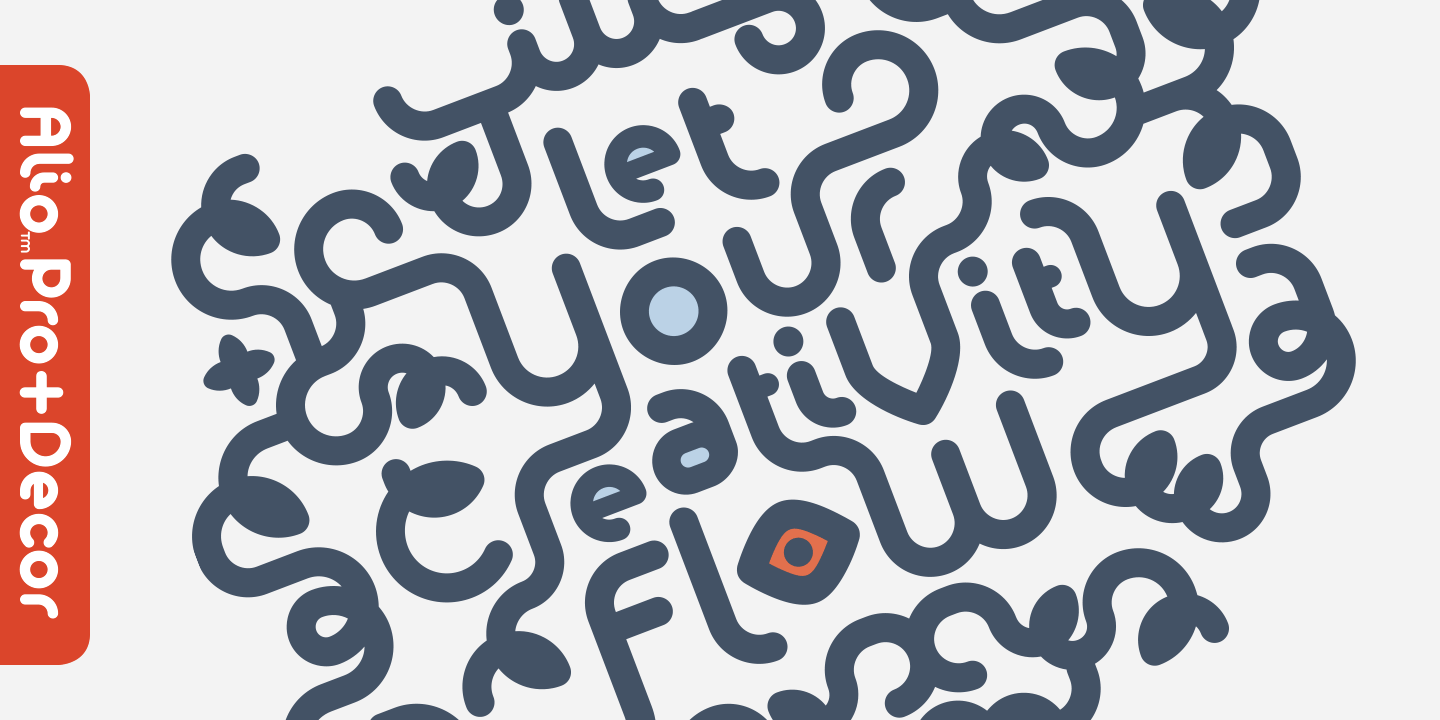
Alio Font is perfect for alternative design projects including independent record labels, alternative lifestyle brands, unconventional art galleries, non-mainstream fashion boutiques, alternative medicine practices, indie publishing houses, creative rebellion themes, and distinctive marketing campaigns. This unique typeface excels in alternative music venues, independent coffee shops, creative co-working spaces, alternative wellness centers, and projects that celebrate individuality, creativity, and the courage to be different from conventional design standards.
What makes Alio Font exciting is its distinctive alternative character that perfectly captures the essence of creative independence and unconventional sophistication. The font features unique letterforms with non-traditional styling that reflects the innovative spirit and authentic individuality of alternative culture movements. Its creative design elements embody the spirit of artistic independence and cultural authenticity, making it perfect for projects that need to convey originality, creativity, and connection to alternative lifestyles. The carefully crafted unconventional details create an atmosphere of creative authenticity and alternative sophistication.
Alio Font comes in multiple family variations including alternative, independent, creative, and distinctive styles. Each weight maintains the distinctive alternative character while offering different levels of creative intensity and independent presence. The font family includes alternative alternates, creative ligatures, and independent variations that provide designers with comprehensive options for creating truly unique and authentically alternative typographic compositions that celebrate creative independence.
Whether you're designing alternative branding, creating independent marketing materials, or developing unconventional promotional graphics, Alio Font Free Download provides the perfect typographic foundation for projects that celebrate creative excellence and alternative sophistication. This remarkable typeface transforms ordinary text into compelling expressions of creative wisdom and alternative authenticity. Download this distinctive font today and differentiate your design projects with the alternative elegance and creative independence that captures the essential spirit of unconventional thinking and artistic authenticity.